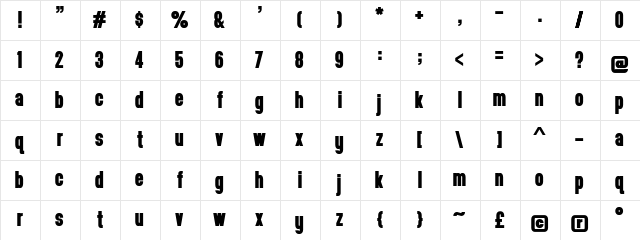
headthinker Regular Font Preview
headthinker Regular
headthinker Regular Font Details
Design Context for headthinker Typeface
headthinker takes a measured approach to typography — its balanced proportions and neutral character make it a reliable workhorse for both digital and print work. Its slender proportions lend an understated elegance to any composition.
First published in 2008, this typeface is available in OpenType (OTF) format.
Pro Tip: Pair headthinker with a font of contrasting weight or personality to build a more expressive typographic hierarchy.